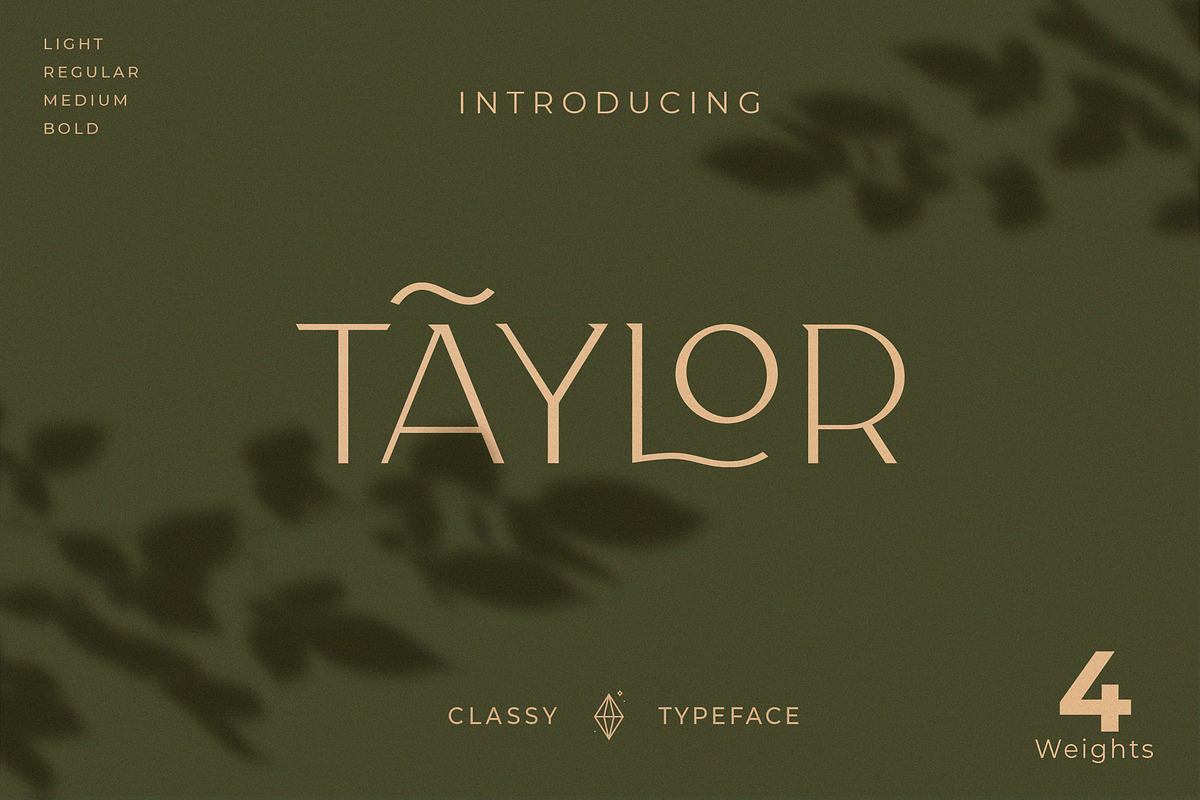
Classy Taylor Typeface Free Download
Please note, you must purchase this font for commercial use. However, you can easily download Classy Taylor Typeface Free Download for personal use and testing purposes. Classy Taylor Typeface is an elegant and timeless typeface that combines sophistication with versatility. Perfect for luxury branding, editorial layouts, logos, and high-end invitations, this font features smooth, refined letterforms that add a touch of class to any design. Whether you're creating a premium brand identity, a stylish magazine spread, or a chic logo, Classy Taylor Typeface Free Download will bring a sophisticated and professional edge to your typography. Download Classy Taylor Typeface Free Download today and explore its potential before opting for a commercial license.